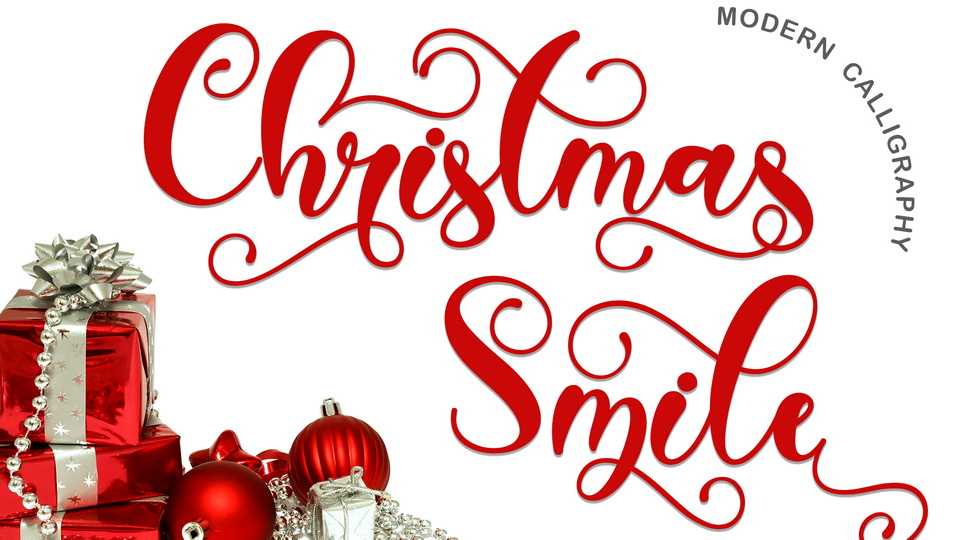
Download Christmas Smile font, a beautiful calligraphy typeface, perfect for beautifying your Christmas moments. Christmas Smile font can also be used for weddings, birthdays, valentines, promotions, thanksgiving, and more.